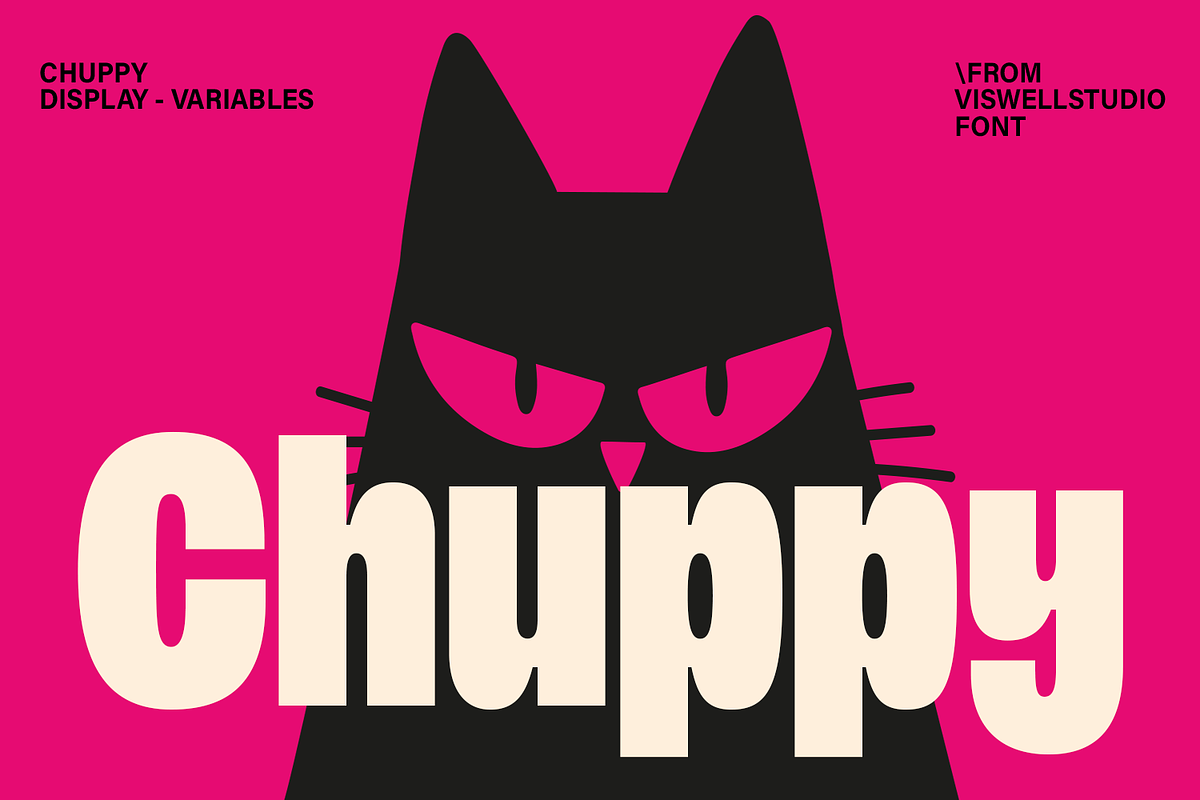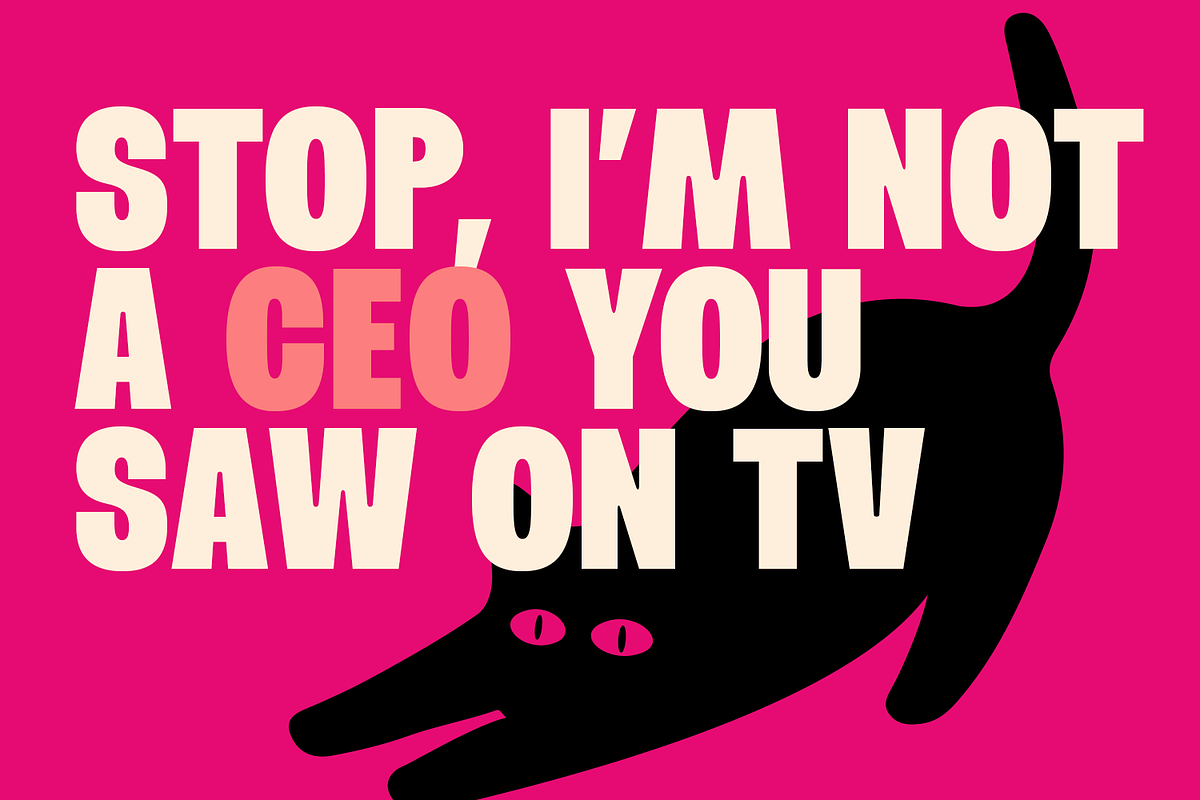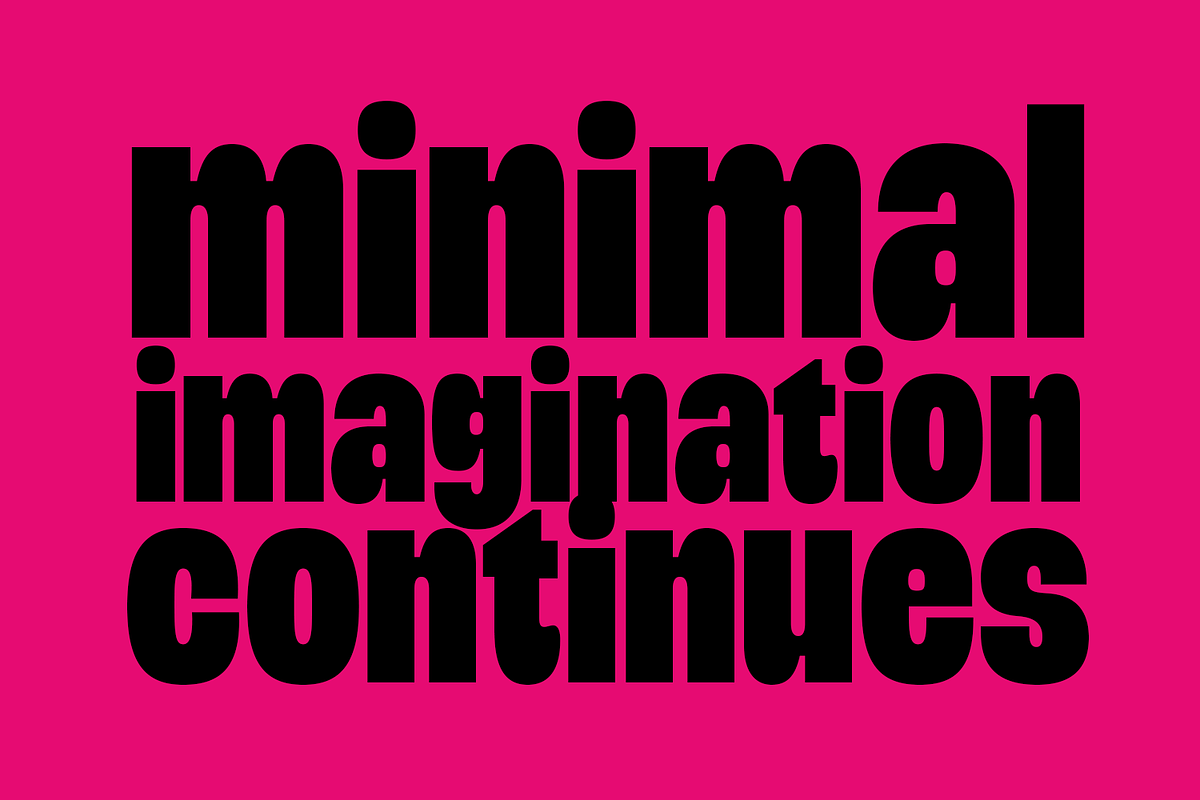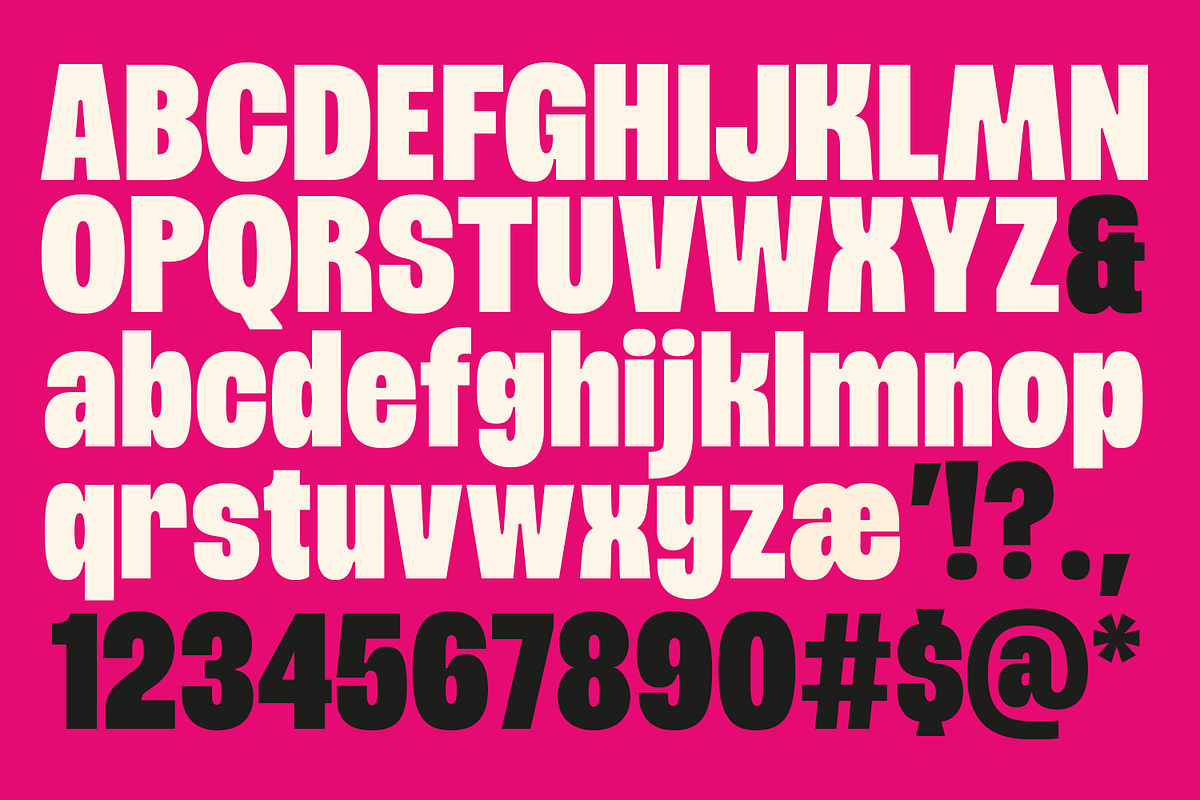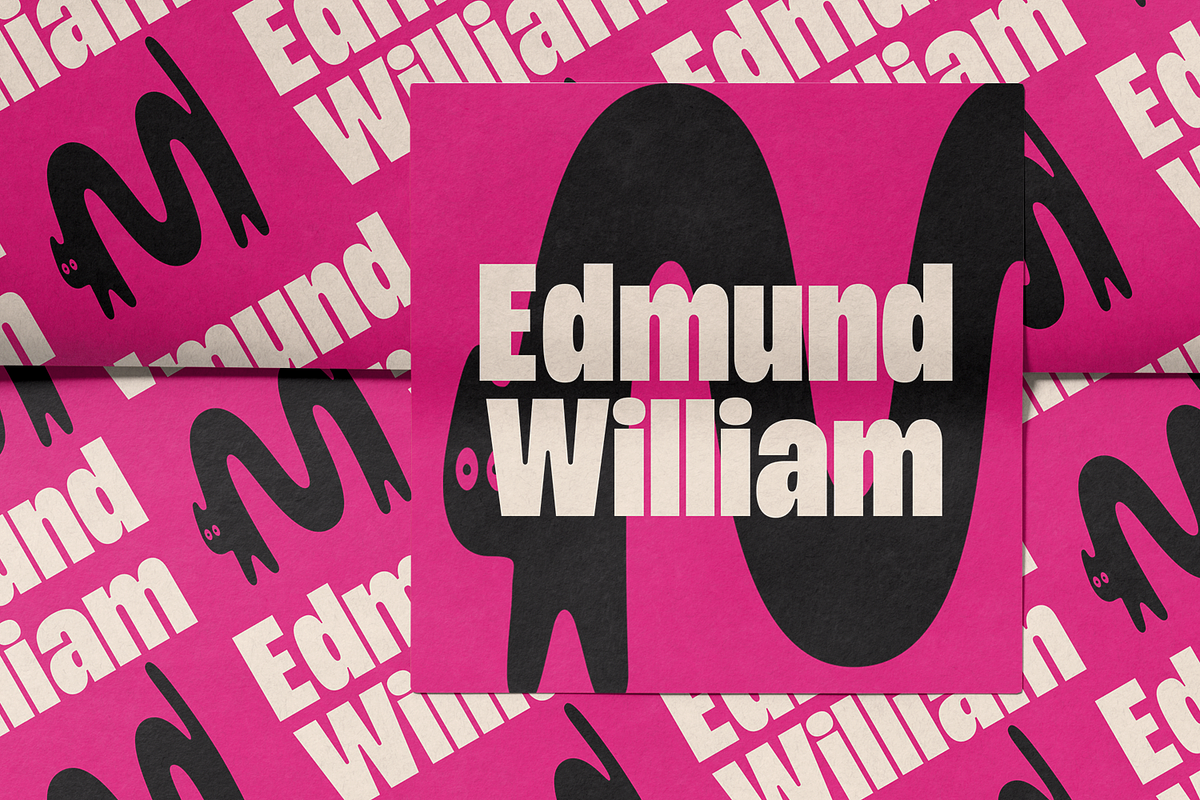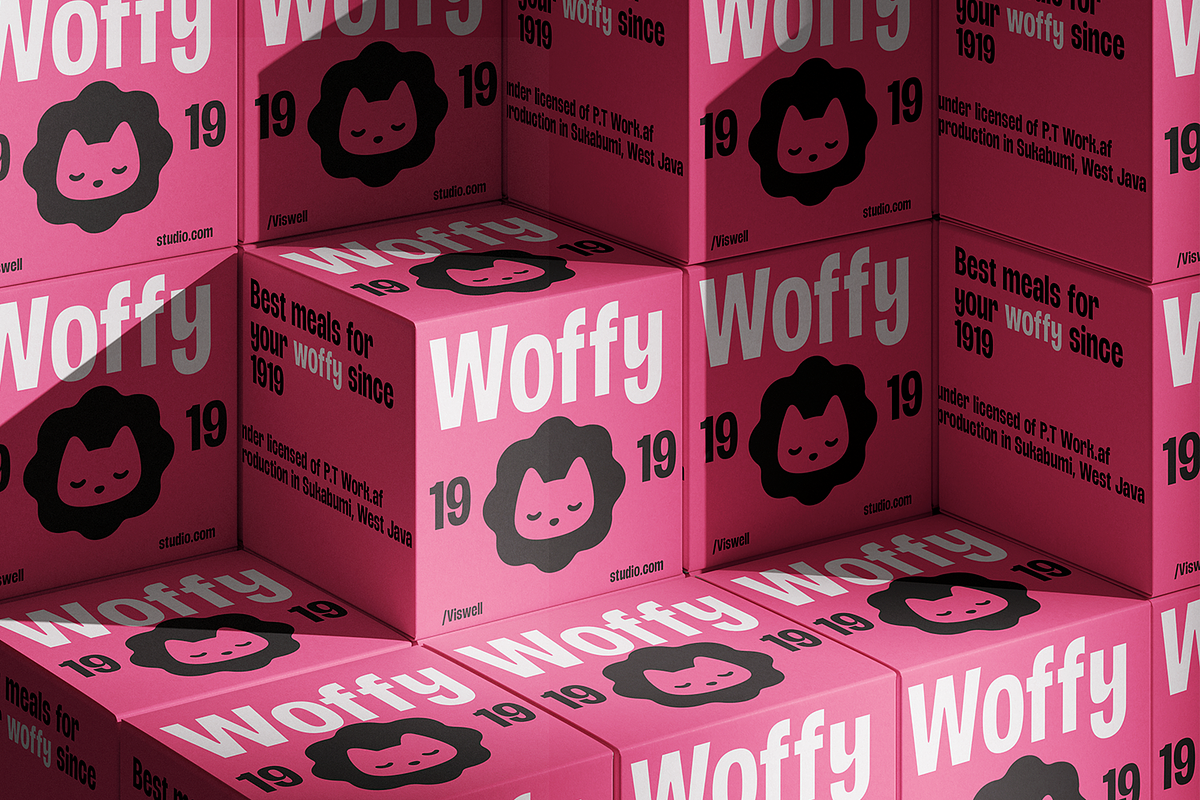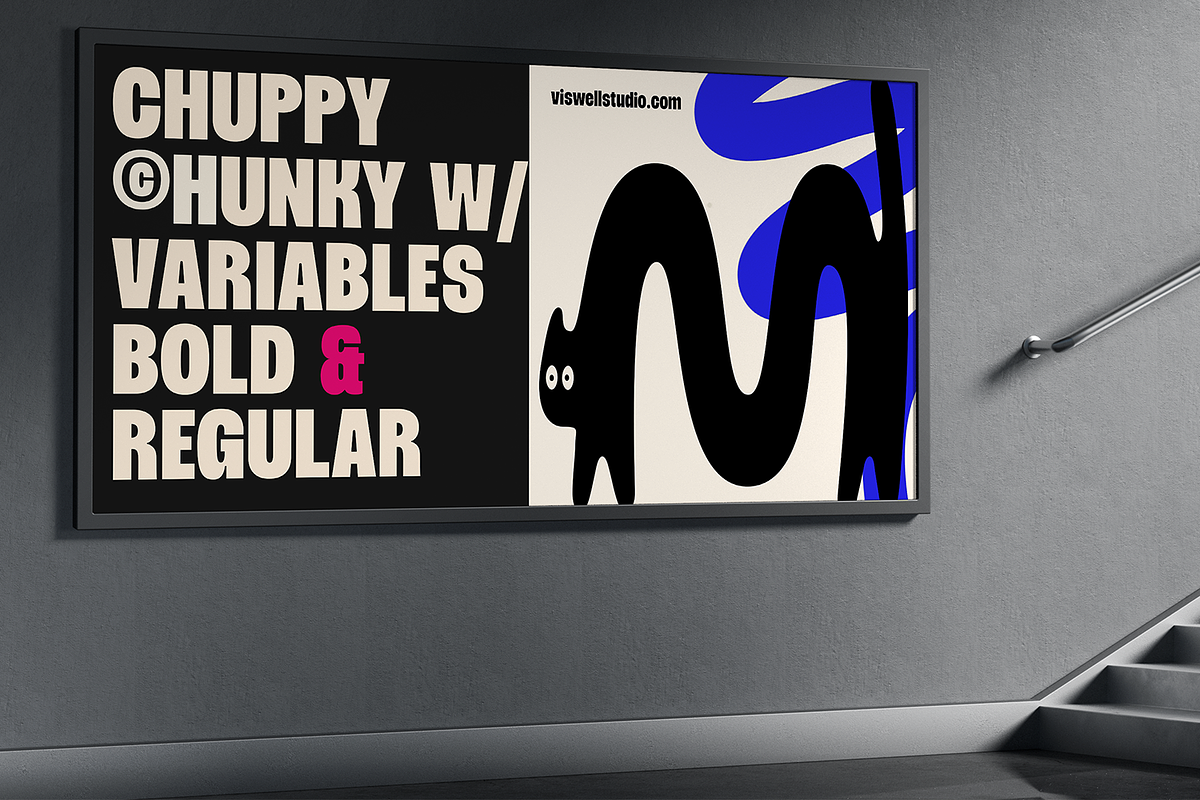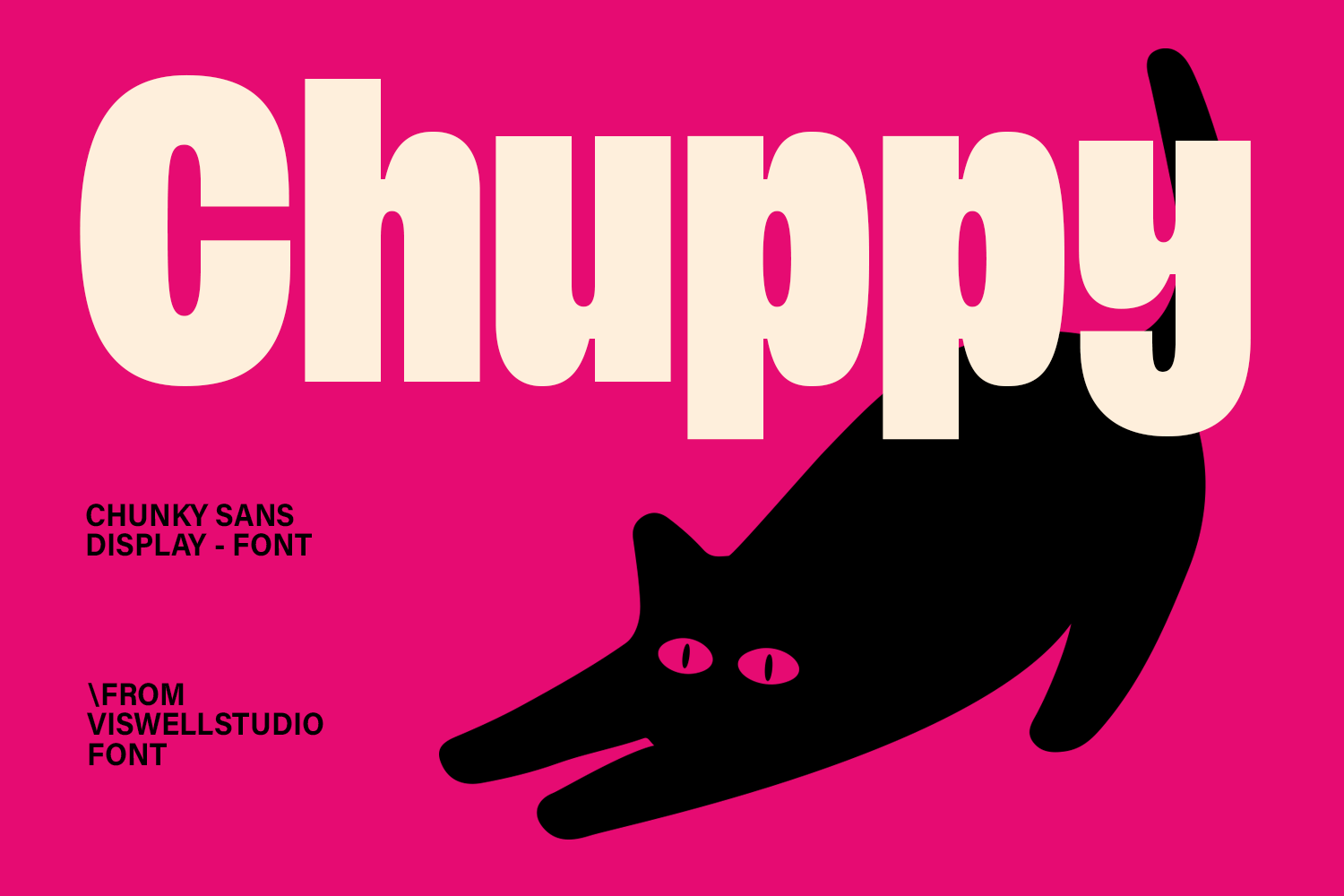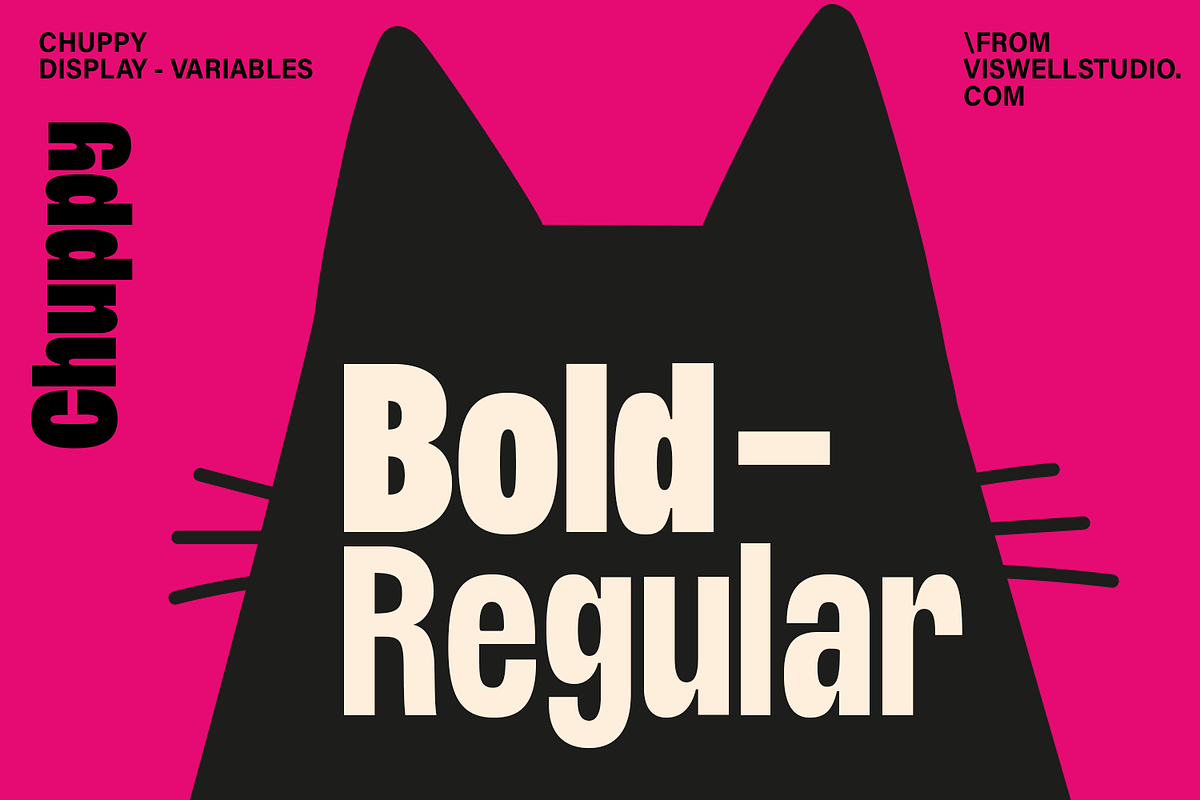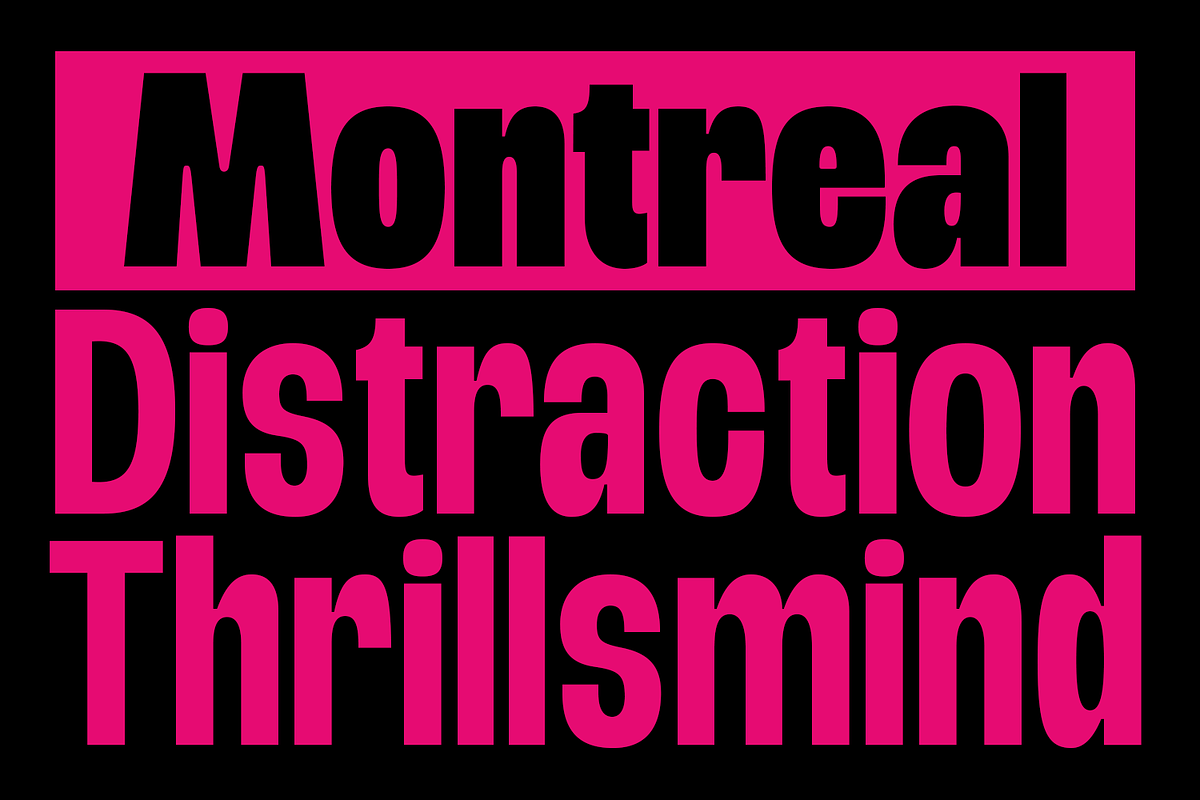
Chuppy Bold Display Font
]Chuppy is one of those fonts that instantly makes a design feel more fun. With its chunky shapes, rounded corners, and playful personality, it's perfect when you want your words to stand out without feeling too serious. It comes in Regular and Bold, and includes uppercase, lowercase, numerals, punctuation, and multilingual support, making it easy to use for logos, packaging, posters, social media, merch, and all kinds of creative projects.
Whether you're building a playful brand, designing a bold headline, or just looking for a font with a little more character, Chuppy fits right in. It's friendly, eye-catching, and versatile enough to become your go-to display font whenever your design needs a big smile.